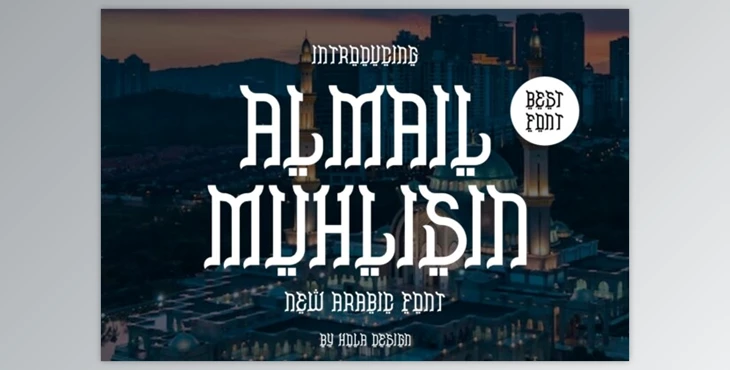
Almail Muhlisin Font: Introducing the Almail Muhlisin Font—a unique and versatile typeface ready to enhance your designs. Whether you're working on labels, movie scenes, posters, titles, gigs, album covers, logos, or any creative project, this font is ready to make a statement. Unlock its distinctiveness for a wide range of design applications!